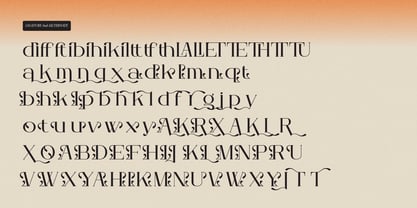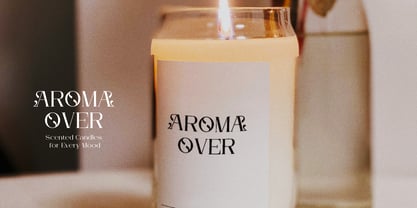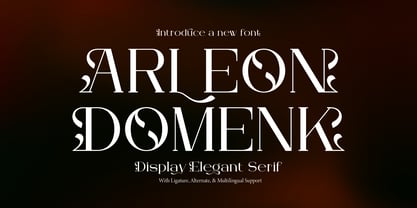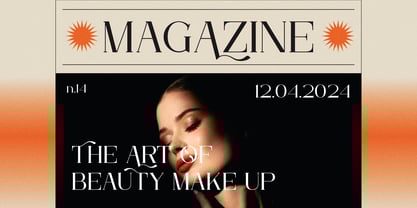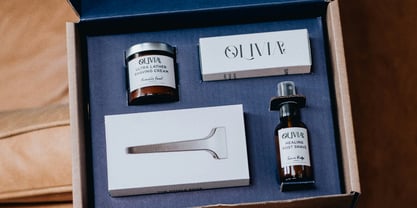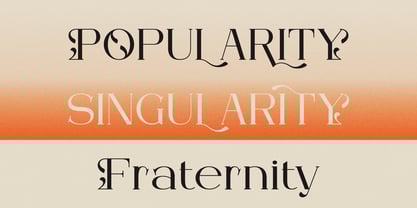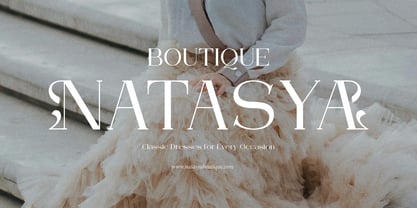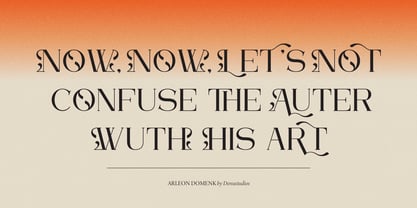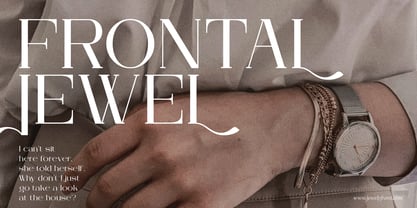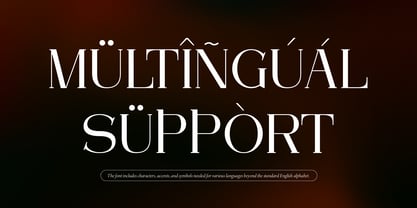
Arleon Domenk
by Denustudio
The Arleon Domenk Font Family was designed by Dede Nugraha and published by Denustudio. Arleon Domenk contains 2 styles and family package options.
Arleon Domenk | Display Elegant Serif, from Denustudios, suitable for any projects such as: logos, branding projects, homeware designs, product packaging, mugs, quotes, posters, shopping bags, t-shirts, book covers, name card, invitation cards, greeting cards, label, photography, watermark, special events, and all your other lovely projects that need a Display Elegant Serif taste.
• Regular and Italic
• Alternate and Ligature